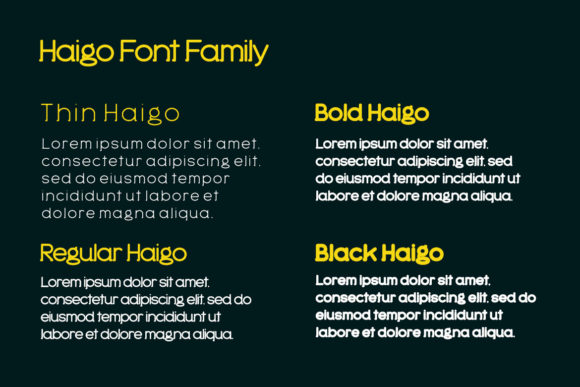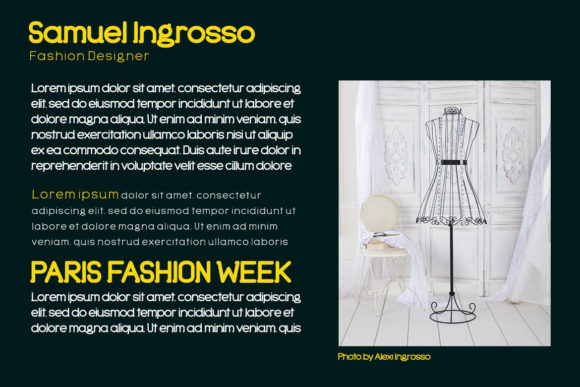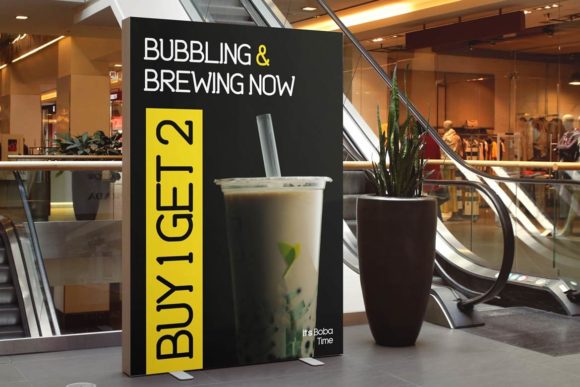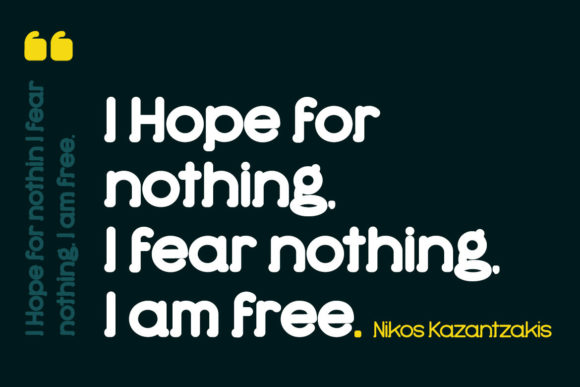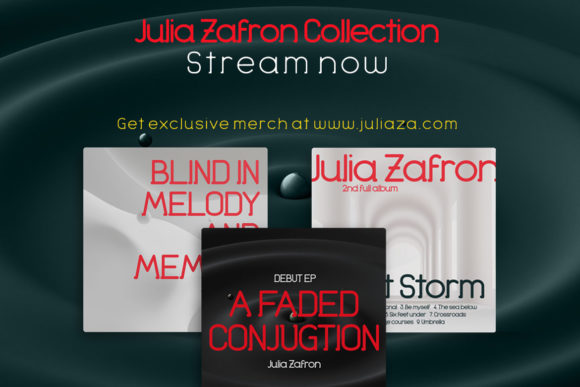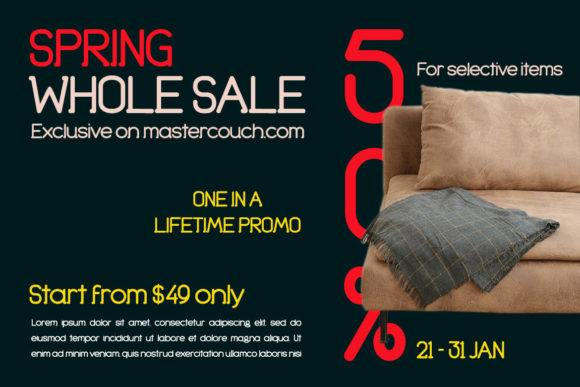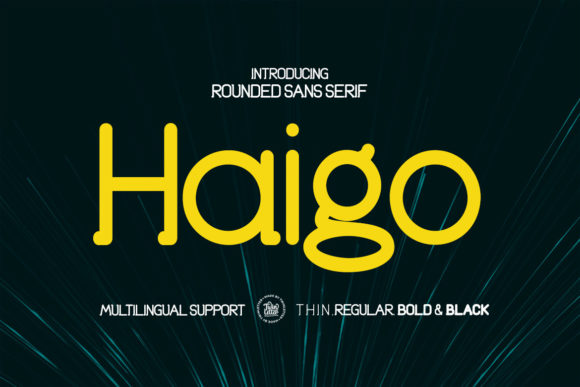
Discover the Timeless Charm of Haigo Font: Elevate Your Designs with a Clean and Vintage Sans Serif
In the world of typography, fonts play a crucial role in conveying the message and aesthetic of a design. For designers and crafters seeking a font that embodies both cleanliness and vintage charm, Haigo Font is an exceptional choice. This article will delve into the characteristics, benefits, and creative applications of Haigo Font, a clean and vintage-styled sans serif font that can transform your posters, flyers, and prints into stunning visual masterpieces.
What is Haigo Font?
Haigo Font is a meticulously crafted sans serif font that strikes a perfect balance between modern cleanliness and vintage appeal. Its design ensures that it remains legible and impactful across various mediums, from digital screens to print materials. The font’s clean lines and classic style make it versatile, suitable for a wide range of design projects.
Key Features of Haigo Font
- Clean and Vintage Style: Haigo Font boasts a unique blend of cleanliness and vintage charm, making it stand out in the world of typography.
- Versatility: Its sans serif design ensures that it can be used in various contexts, from posters and flyers to digital interfaces.
- Legibility: The font’s clear and simple design makes it highly legible, even at smaller sizes.
- Aesthetic Appeal: Haigo Font adds a touch of elegance and sophistication to any design, making it perfect for projects that require a classic yet modern look.
Benefits of Using Haigo Font
Choosing Haigo Font for your design projects comes with numerous benefits:
- Enhanced Visual Appeal: The font’s unique style will make your designs stand out and capture the attention of your audience.
- Time-Saving: With its versatile nature, you can use Haigo Font across multiple projects, saving time and effort in selecting different fonts.
- Trend-Relevance: The font’s vintage touch ensures that your designs remain trendy and relevant, avoiding the quickly outdated look of some modern fonts.
Creative Applications of Haigo Font
The creative possibilities with Haigo Font are endless. Here are some ideas to get you started:
- Posters and Flyers: Use Haigo Font to create eye-catching posters and flyers for events, promotions, or informational campaigns.
- Branding and Logotypes: The font’s unique style makes it an excellent choice for branding and logotypes that require a distinctive look.
- Digital Interfaces: Implement Haigo Font in your website or app design to provide a clean and user-friendly typographic experience.
- Print Materials: From brochures and catalogs to business cards and letterheads, Haigo Font can elevate the look of your print materials.
Tips for Maximizing the Potential of Haigo Font
To make the most out of Haigo Font, consider the following tips:
- Experiment with Sizes: Play around with different font sizes to create visual hierarchy and emphasize key messages.
- Combine with Other Fonts: Don’t be afraid to pair Haigo Font with other fonts to create contrast and add depth to your designs.
- Adjust Line Spacing: Optimize line spacing to improve readability and ensure a smooth reading experience.
- Use Color Wisely: Select colors that complement the font and enhance the overall aesthetic of your design.
Haigo Font is a remarkable addition to any designer’s or crafter’s toolkit. Its clean and vintage-styled sans serif design offers a unique blend of modernity and classic charm, making it perfect for a wide range of projects. By incorporating Haigo Font into your designs, you can create visually stunning and impactful works that engage and captivate your audience. Explore the endless possibilities with Haigo Font and elevate your designs to new heights.